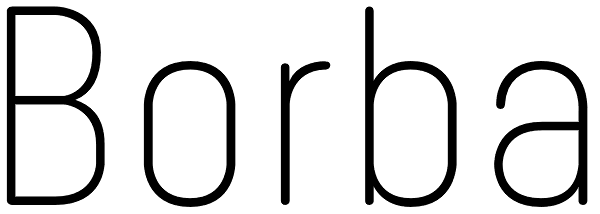
Borba
Borba is light, fresh and friendly at first glace. It's simple, modern and elegant due to its monoline and minimalistic form. It is really readable which makes it perfect for long texts but it looks great in titles and short sentences as well. To...